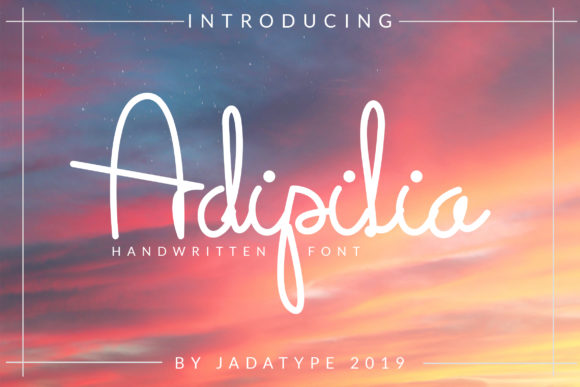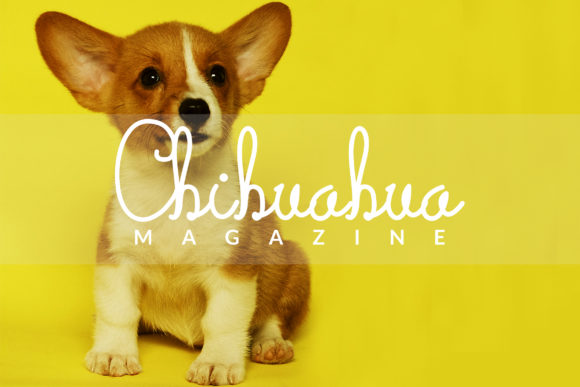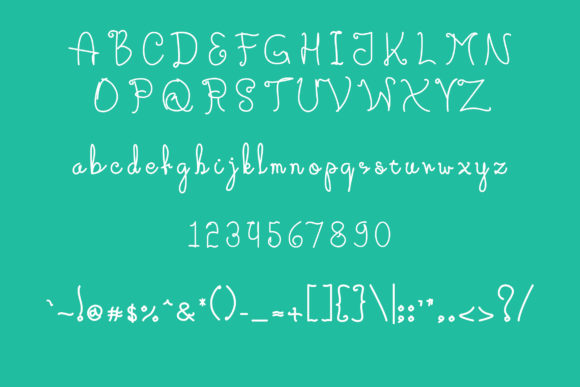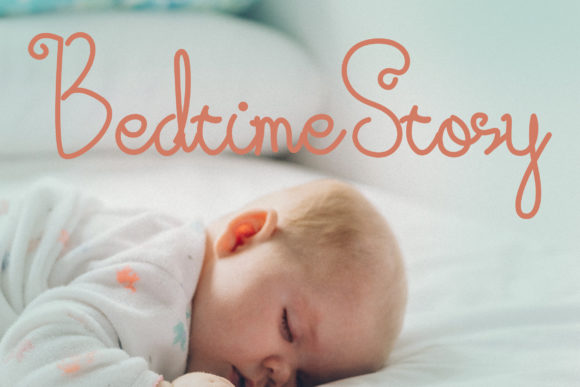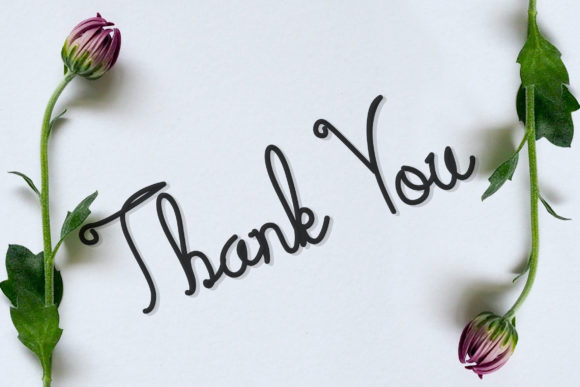
HomeScript FontsAdipilia Font Script Fonts Adipilia Font FacebookXPinterestWhatsApp Adipilia Font Poster 2 Adipilia Font Poster 3 Adipilia Font Poster 4 Adipilia Font Poster 5 About Adipilia Font Adipilia is a sweet, fun and friendly script font with a warm feel. Get inspired by its authentic charm! DOWNLOAD NOW People also explored YWFT Crew Nicoline Font Christmas Signature Font Fenway Font Merlyna Font Pardidu Font Virtuos Font Cangcuters Font Jacklyn Font 251 0 TagsAdipilia Font Previous articleSebqor FontNext articleMishora Script Font LEAVE A REPLY Cancel reply Comment: Please enter your comment! Name:* Please enter your name here Email:* You have entered an incorrect email address! Please enter your email address here Website: Save my name, email, and website in this browser for the next time I comment. Personal Use Free Hillgates Personal Use Free Read more about this font Cranberry Gin Personal Use Free Read more about this font Snaily Personal Use Free Read more about this font Sefiya Personal Use Free Read more about this font BLOG Top 7 Google Fonts Alternatives for Faster and Privacy-Friendly Web Design (2025) Top 7 Google Fonts Alternatives for Faster and Privacy-Friendly Web Design (2025) When it comes to web typography, Google Fonts has long been the go-to... Best Fonts for T-Shirt Design – Top 2025 Picks Elegant Wedding Invitation Fonts – Handwritten & Script Fonts Best Fonts for YouTube Videos: Make Your Thumbnails Stand Out